Roy Chan’s latest creation, Reborn Font, was designed like many others – with Hong Kong in mind. He wants it to “reawaken the toughness of the past.”
With his latest creation, Reborn Font, Hong Kong font designer Roy Chan wants to “reawaken the toughness of the past.”
Based on Serif and Sans-Serif fonts, Chan’s design features strong strokes and sometimes sharp corners, through which the 25-year-old hopes to create traditional Chinese characters that can act as a rallying cry.
“I think the problem is that Hong Kong lacks a font that has the impact of a rallying cry or a lot of character, which was much needed when we began the project in 2020, as there was a strong sense of powerlessness at the time,” said Chan.
“Whether it was the protest movement or the pandemic, people were left feeling feeble no matter what they did.”
But Reborn Font is far from feeble. Bold and punchy, it features characteristics such as horizontal strokes that end with a hook and right-to-left strokes with rounded corners, which are integral to its design and its essence.
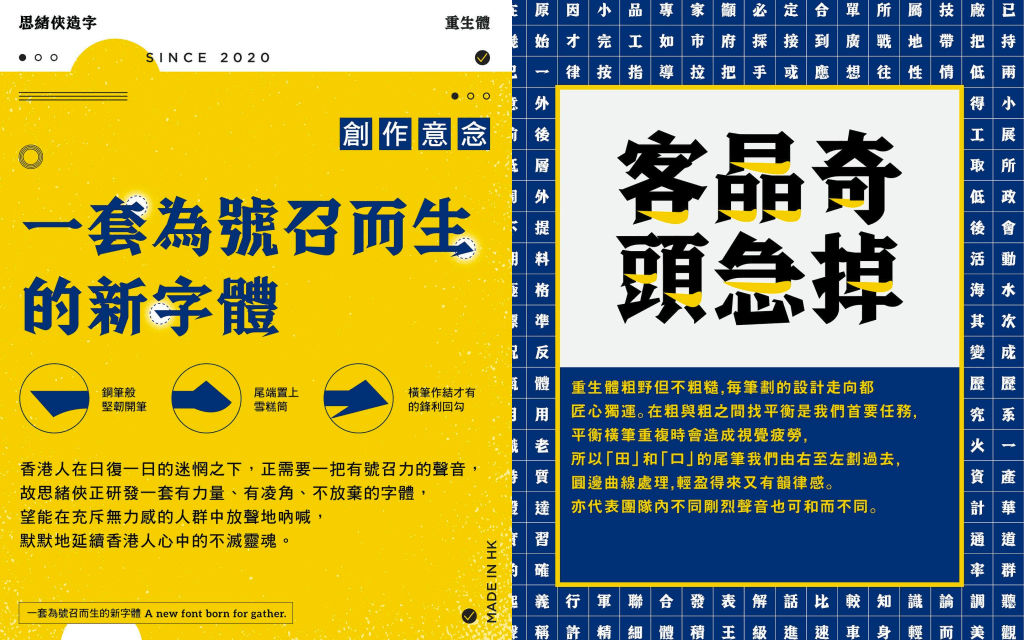
“In the square, every stroke has its purpose, there are a lot of sharp edges and corners. The different strokes, and an attempt to make them ‘agree to disagree,’ symbolise a city that is home to many different people with voices. Some will be more extreme, but there are always some people mediating in the middle – that’s what the right-to-left strokes with rounded corners signify,” Chan said.
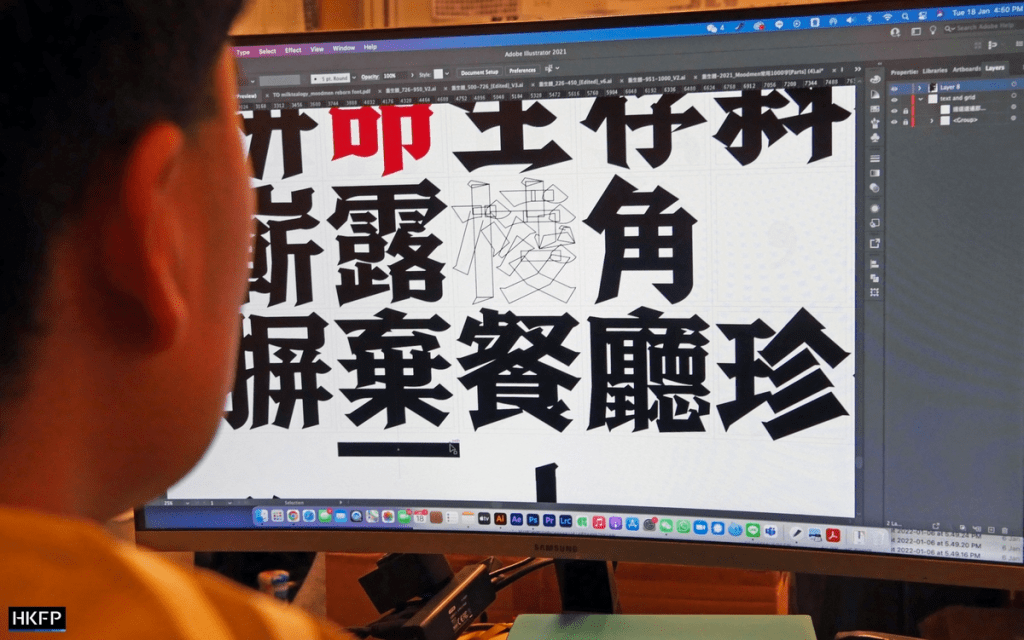
“As for the horizonal strokes that end with a hook, [they symbolise that] if people continue to attack us from the outside when we are already trying hard to survive within the square, then we will break out from the square, defend ourselves and fight back to stop their attacks.”
The beginning of Moodmen
Chan was working at an advertisement agency when he first began designing his own fonts, something that happened almost by accident.
“In graphic design, there are several key components, such as fonts, typesetting, and Photoshop editing. Of these components, apart from being relatively good at using Photoshop to edit photos, I’m quite weak at typesetting and choosing colours,” said Chan.
“It was because I wasn’t good enough at those other things that I decided to try my hand to designing fonts.”
With plenty of spare time, Chan began learning how to create fonts, starting with Japanese characters and later moving onto Chinese characters.
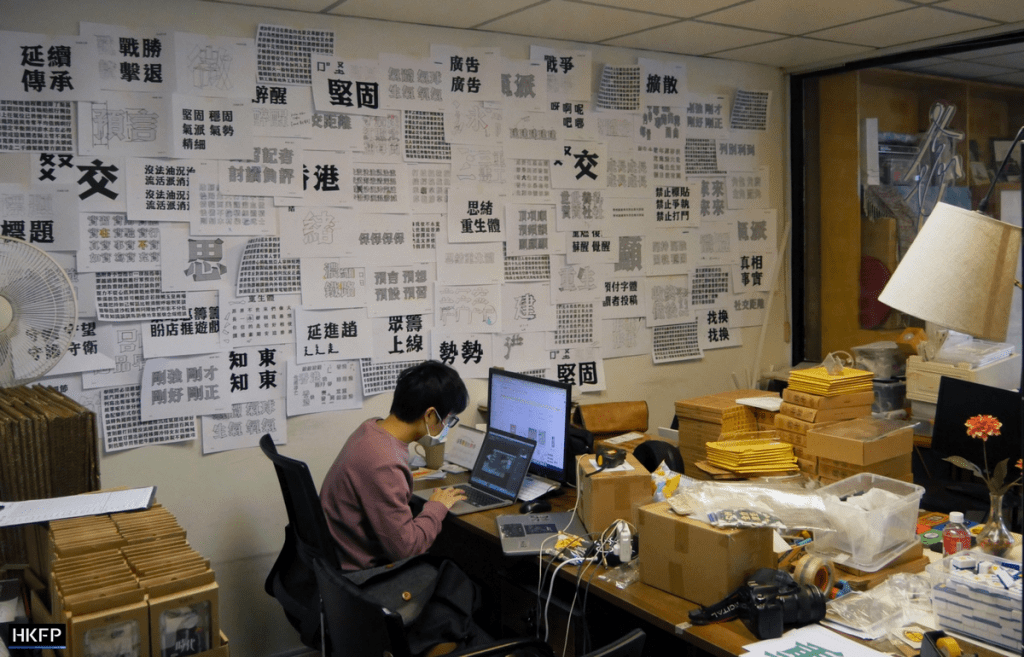
“The company I worked for back then was an old-fashioned agency with a lot of partitions in the office… No one really knew what you were doing in your seat,” said Chan. “Coincidentally I was in a new team and I didn’t have much to do.”
The first designs Chan posted on his personal Instagram account were Moodmen and Almightymen. It was after seeing them that a friend encouraged him to set up a new page for his creations.
In 2020, after earning some money from the sale of his first calendar, Chan founded his own company, called Moodmen Font after one of his first creations, and began working full time as a font designer.
Resisting washouts
In January, Moodmen Font launched a crowdfunding campaign to raise HK$1 million for Reborn Font, with the goal of publishing designs for more than 5,000 traditional Chinese characters that Chan hopes to conserve.
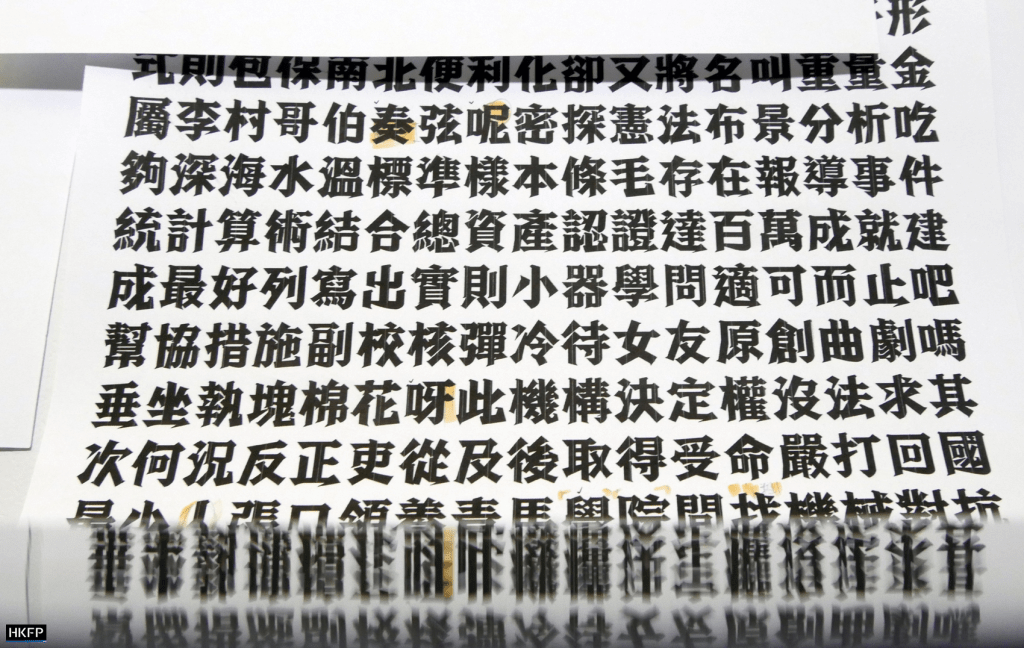
As well as its unique design, Reborn Font also features words that are only used in Cantonese.
“If you say that it does not matter whether it is traditional or simplified Chinese characters as long as people can understand it, then you’re not really a Hongkonger… If you think like that, you’re not one of those defending traditional Chinese characters.”
The font designer hoped to appeal to those who use traditional Chinese characters.
“You don’t have to be especially proud of it, but when it’s your mother-tongue, such as Cantonese, when there are cultures that you don’t want to see disappear, you have to do something to defend them.”
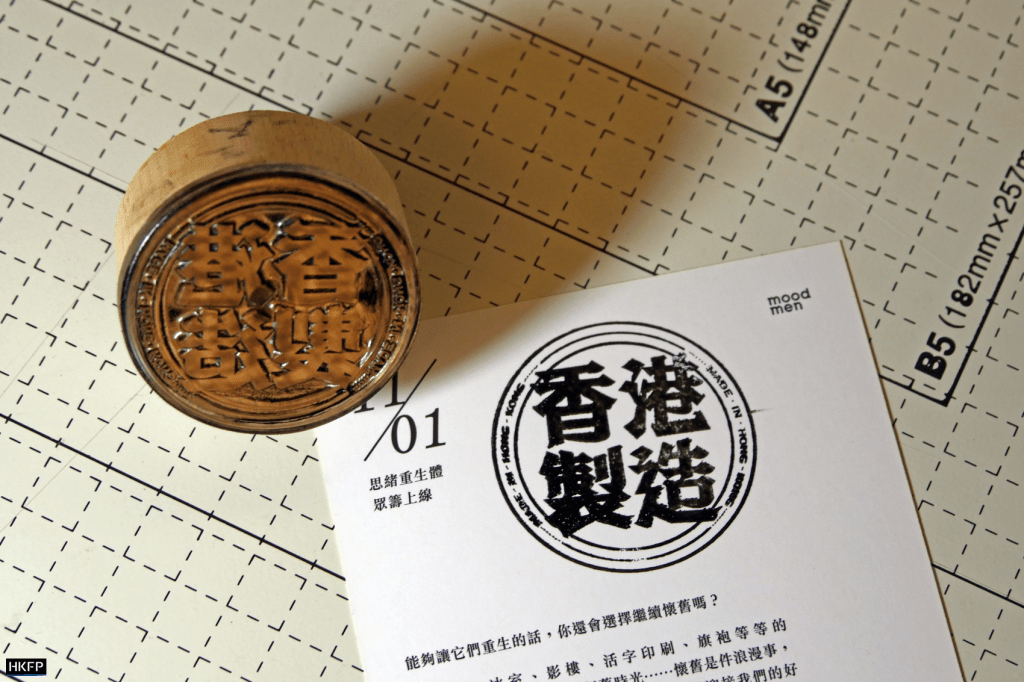
“I think simplified Chinese characters diluting traditional characters, or Mandarin diluting Cantonese, these are all upcoming trends in the future. We don’t want to see these trends becoming more popular, that’s why we do what we can.”
‘A complicated era’
To date, Moodmen Font has published hundreds of designs, many of which were linked to specific social events, including Hong Kong’s historic wins at last year’s Toyko Olympics, as well as the 2019 anti-extradition bill protests.
However, following the enactment of the Beijing-imposed national security law and the increasing number of charges brought under the colonial-era sedition law, Chan described the times as “complicated.”
“Living in such a complicated era… there is risk doing anything,” Chan said.
“If you ask whether I will stop doing something because of certain laws, I don’t have a specific feeling because I’m not creating to break laws.”
The 25-year-old said he decided to stick around, as this is a time where he can “best release” his creation.
“It’s easy to leave, but if I leave, I won’t be able to give as much. Of course, I would still be able to contribute, but I can do so more directly if I stay here.”
“Reborn Font is a contribution of some sort… leaving a new set of fonts here will definitely help Hong Kong, that’s why I’m doing this first and thinking about my future later.”